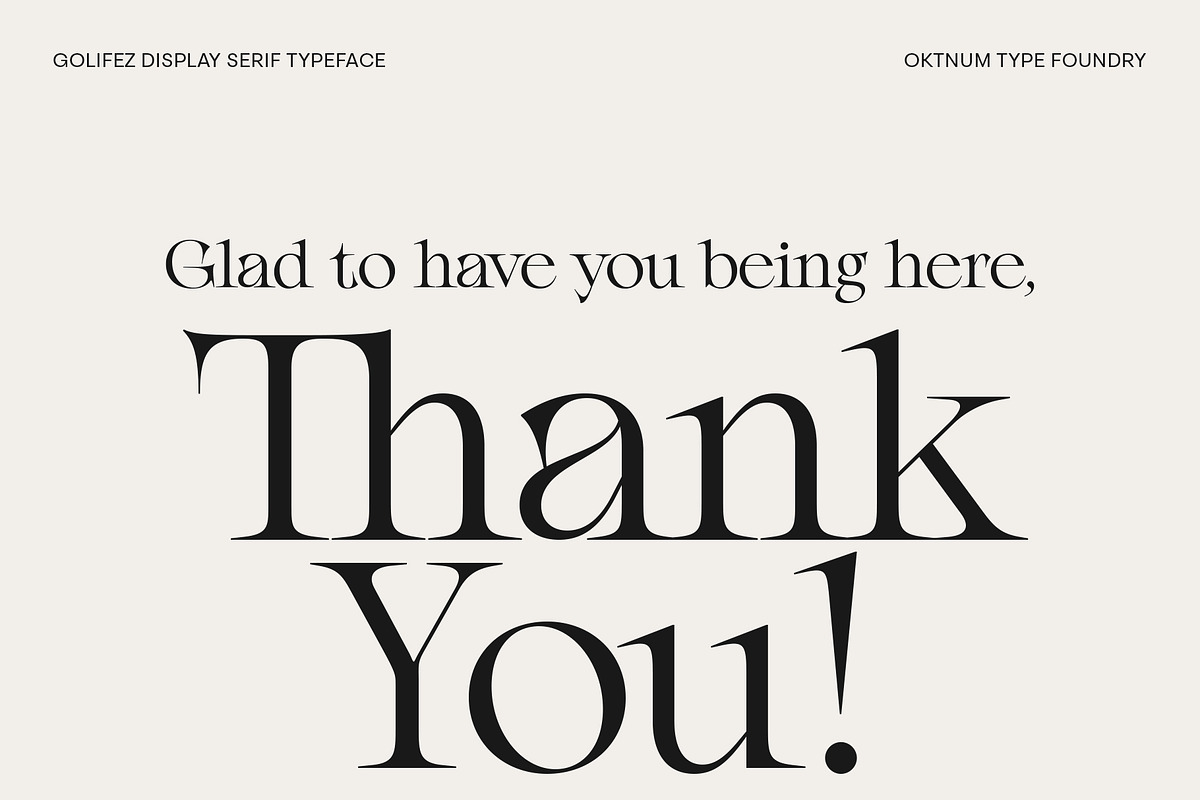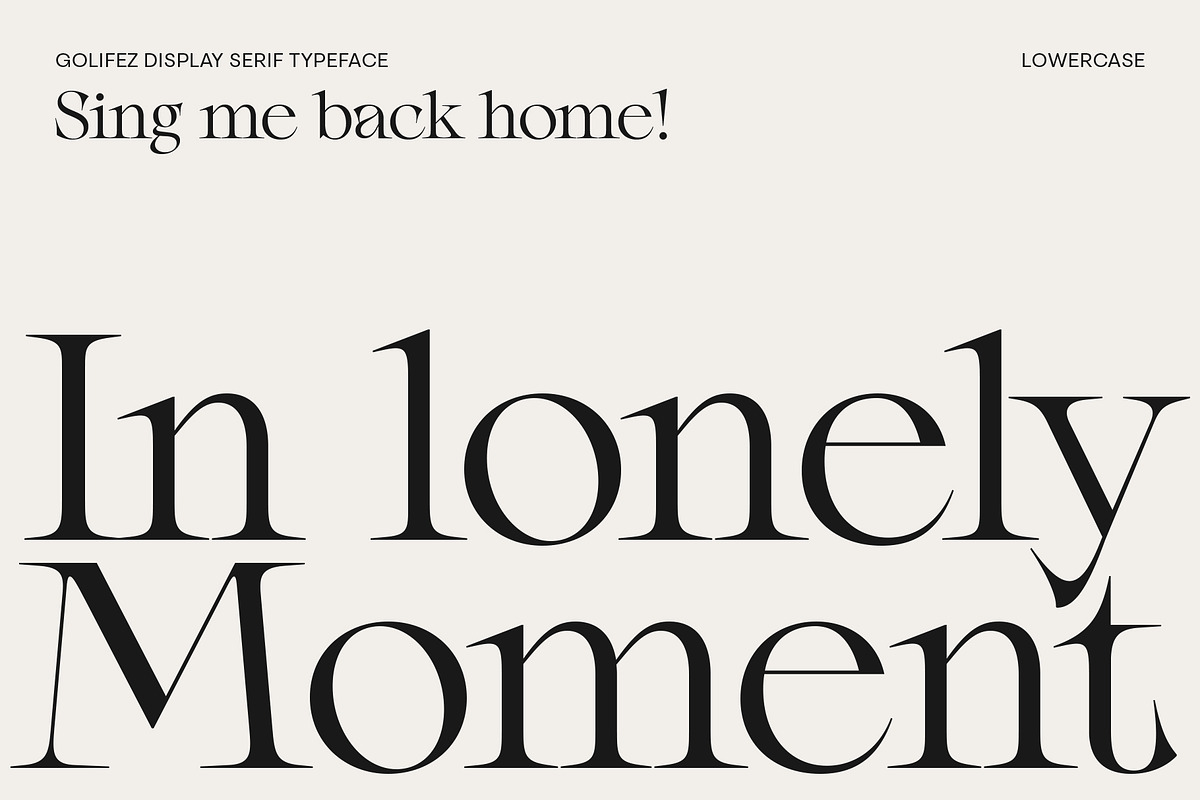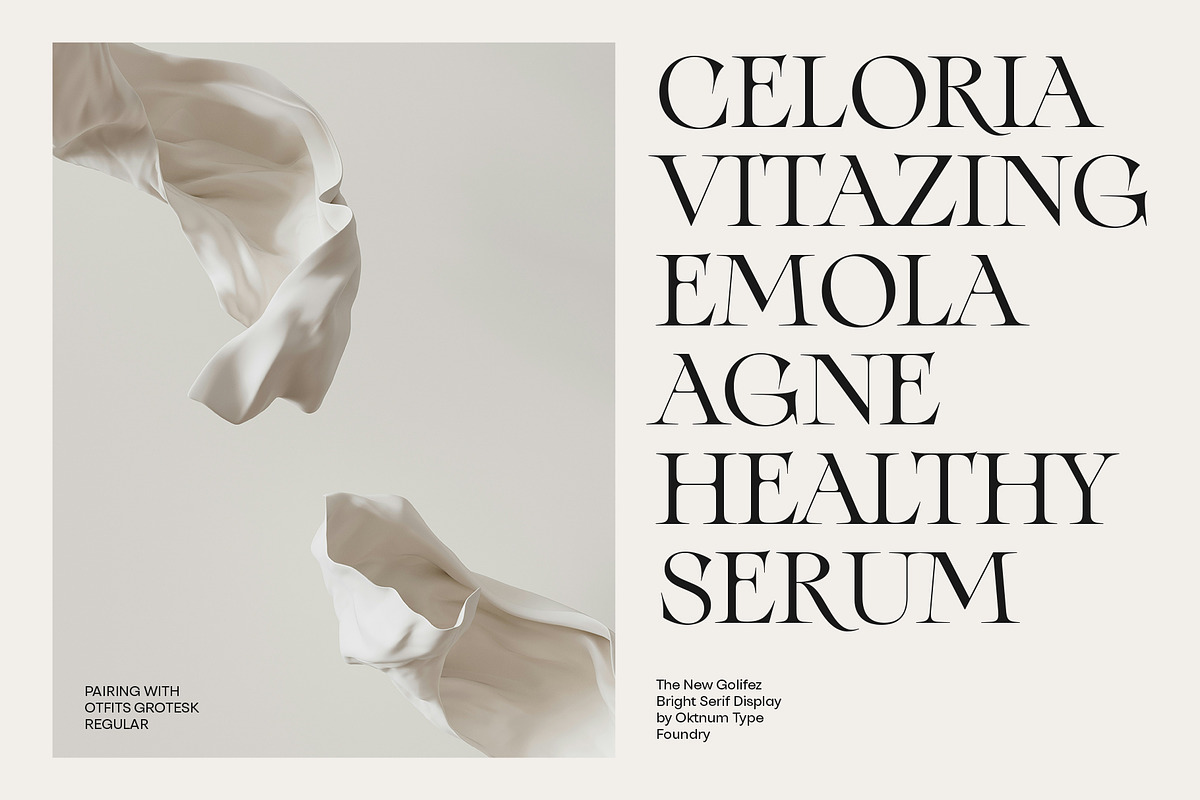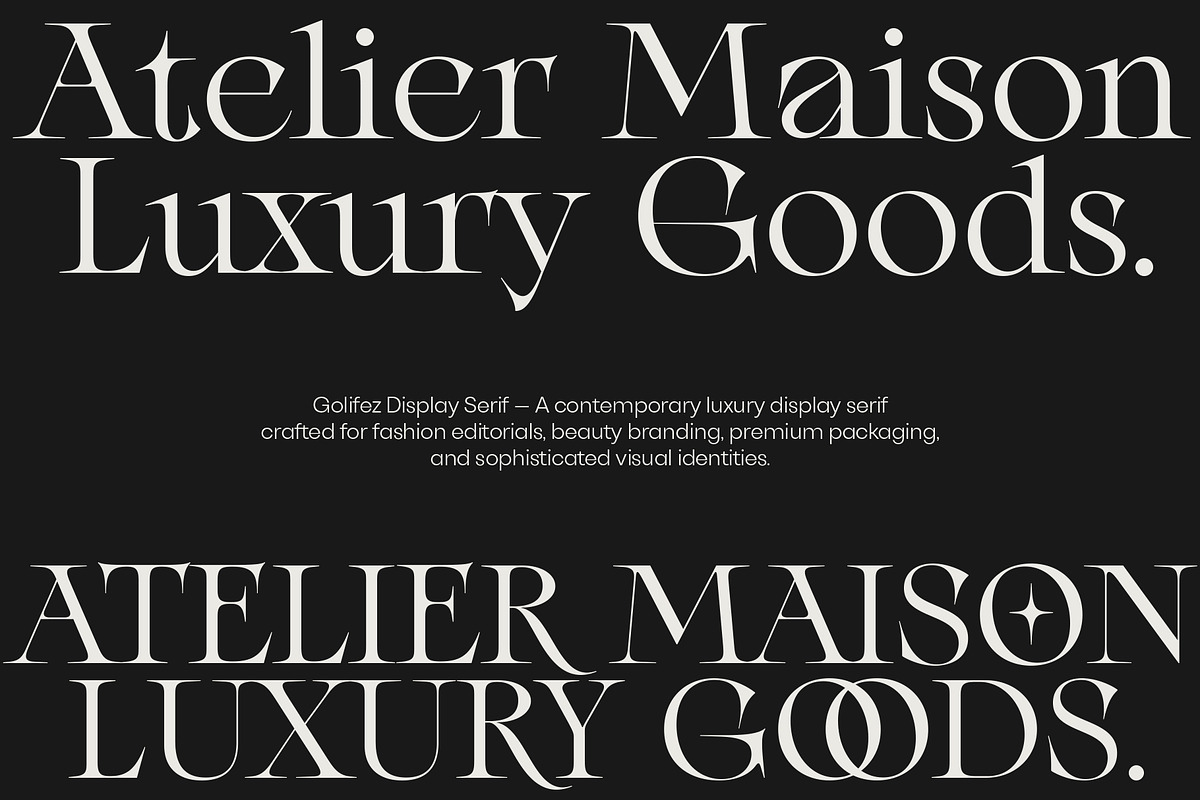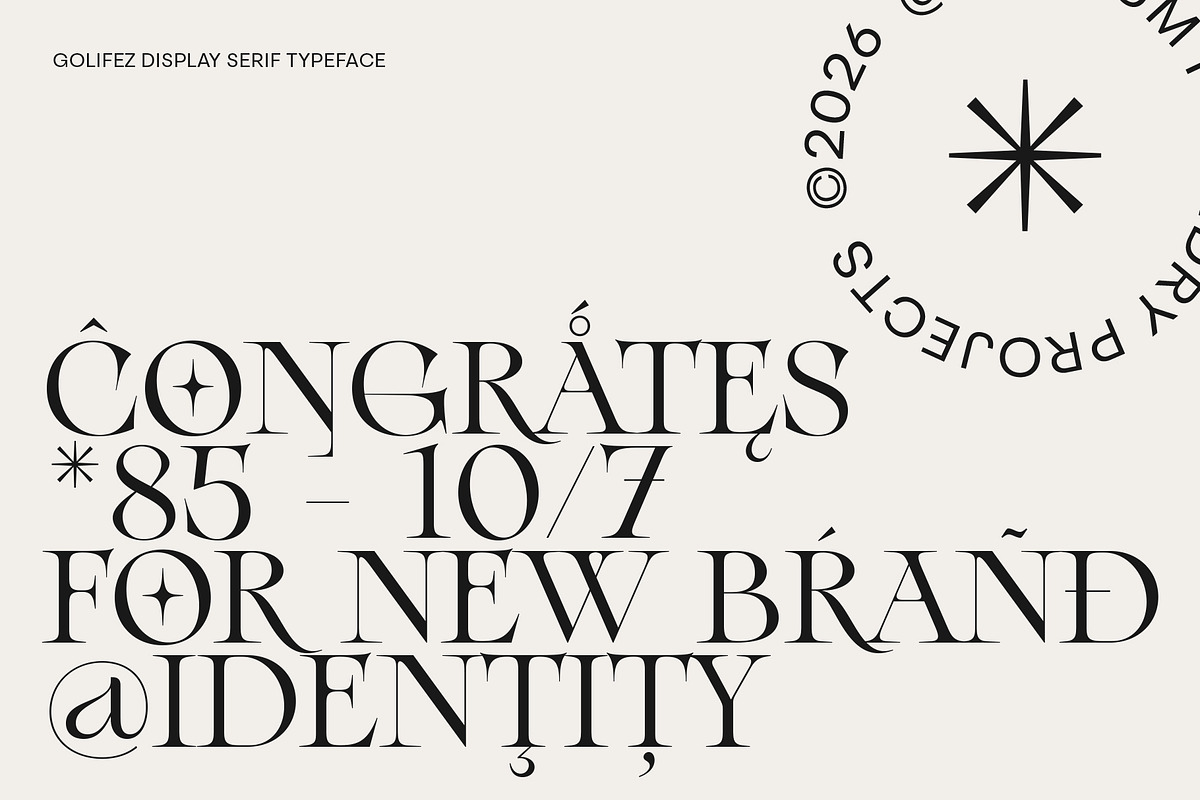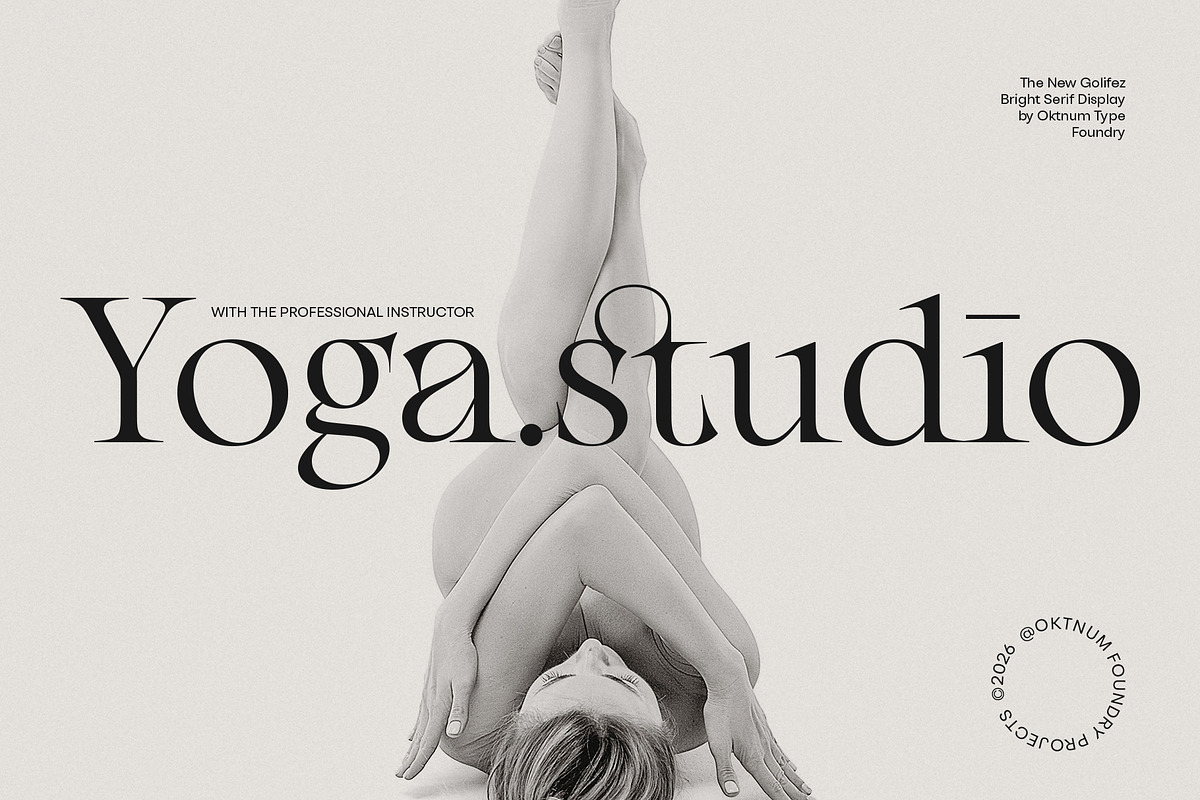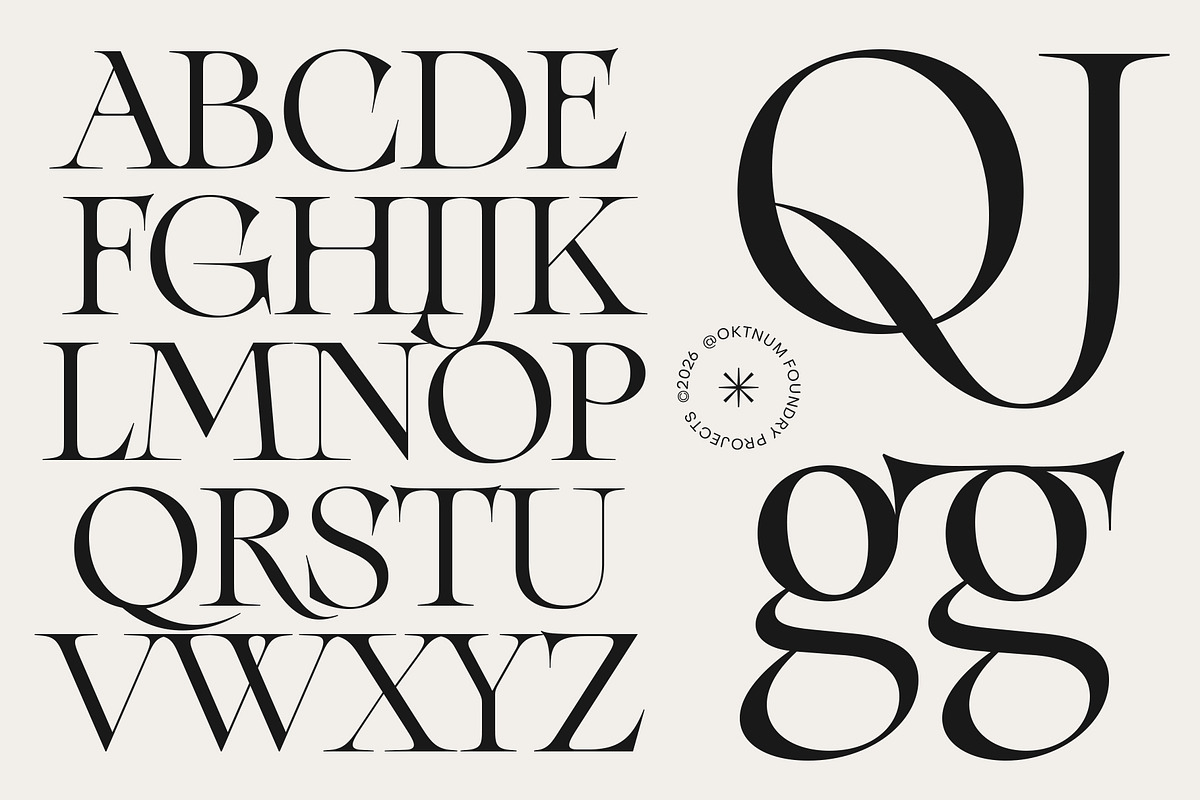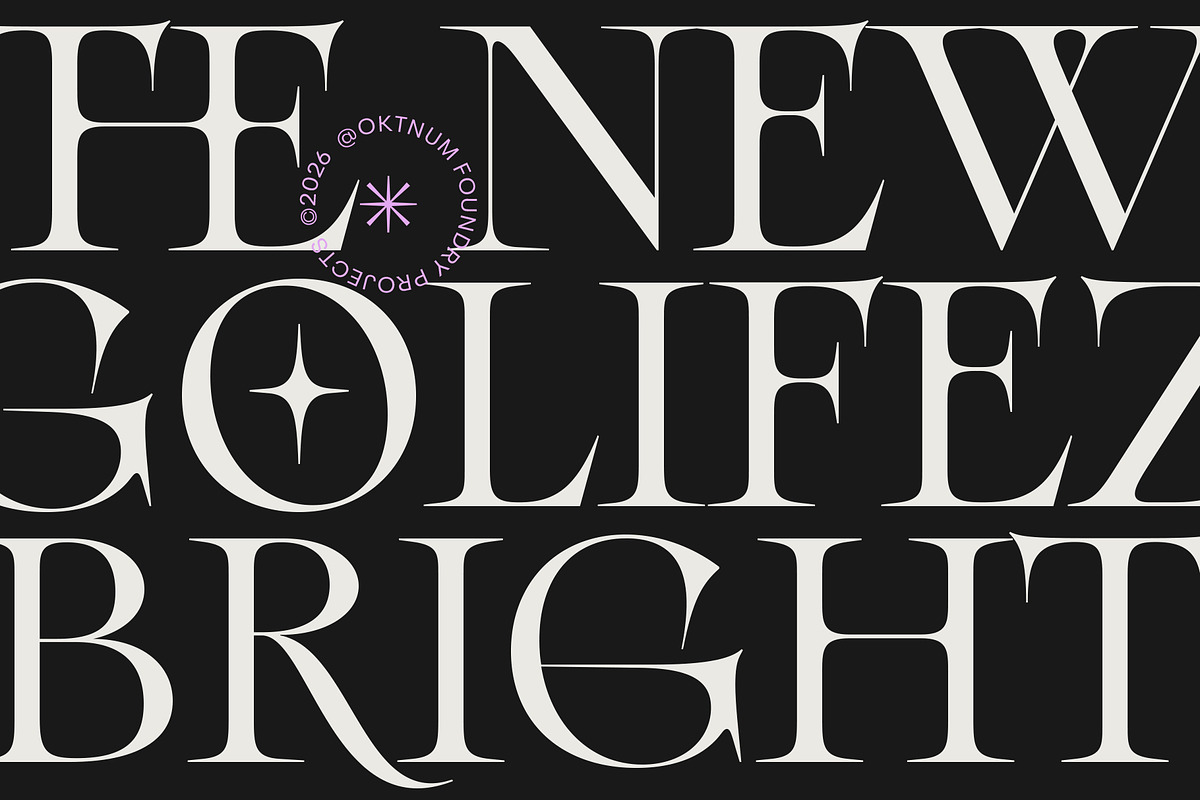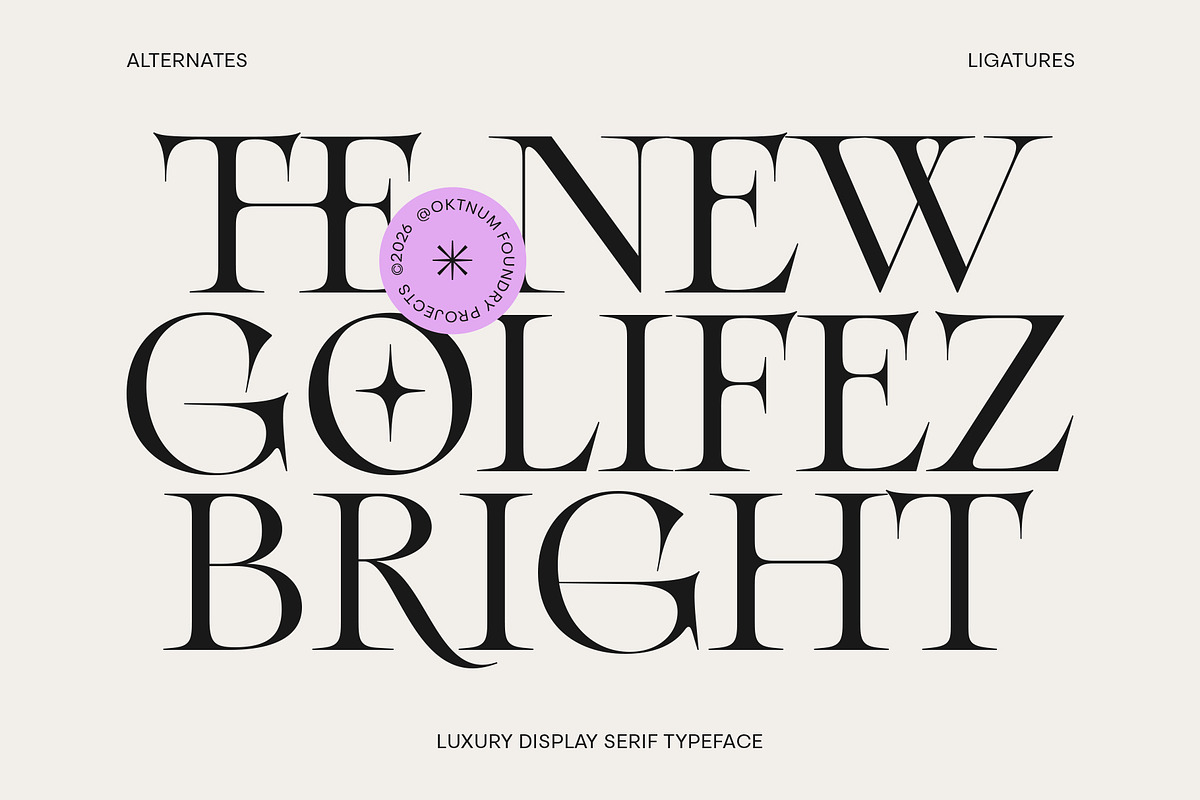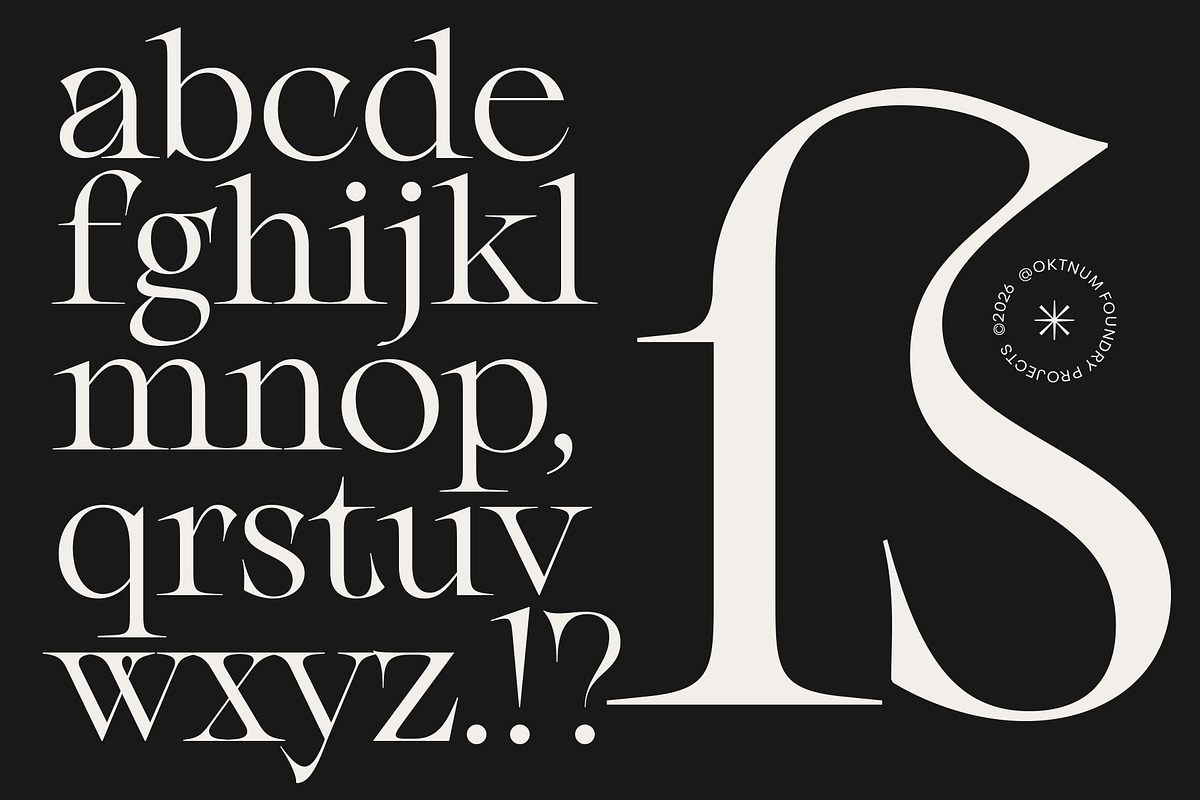
Golifez Bright Serif
Golifez Bright Serif is a refined editorial serif designed for modern luxury. Balancing dramatic contrast with graceful proportions, it captures the elegance of classic typography while embracing a fresh contemporary voice.
Created for fashion identities, premium branding, and sophisticated publications, Golifez Bright Serif delivers a distinctive presence through crisp serifs, sculptural curves, and expressive ligatures. Every detail has been carefully drawn to produce typography that feels polished, confident, and memorable.
From luxury packaging and boutique logos to magazine covers and lifestyle campaigns, Golifez Bright Serif adapts effortlessly across both print and digital applications. Its elegant rhythm allows designers to create compositions that feel timeless, elevated, and visually striking.
Featuring extensive OpenType functionality—including stylistic alternates, discretionary ligatures, and multilingual Latin support—Golifez Bright Serif offers the flexibility needed for today's professional design workflows.
Elegant by nature. Contemporary by design. Crafted for brands that value beauty in every detail.